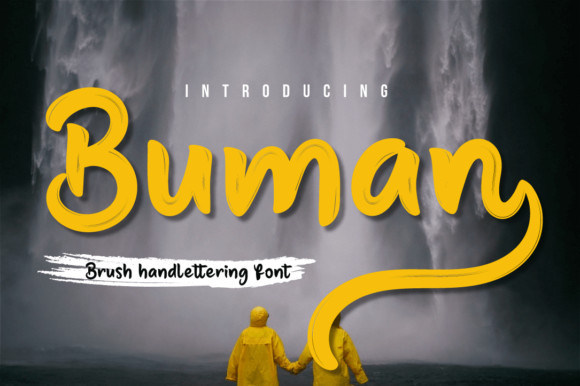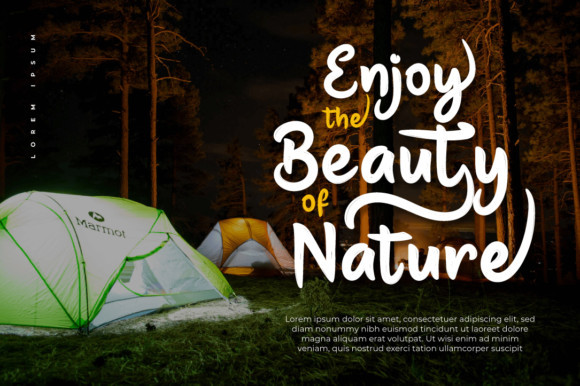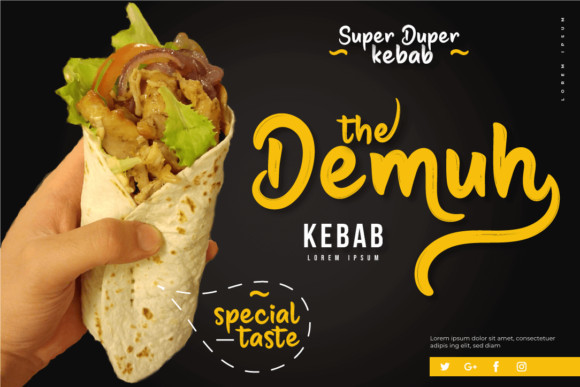
Buman Font
Buman is a brush handwritten font. This is the perfect font for making original and outstanding designs.
This font is great for a wide variety of branding, advertising, posters, banners, packaging, podcasts, outdoor activities, apparel, quotes, beverages and more.